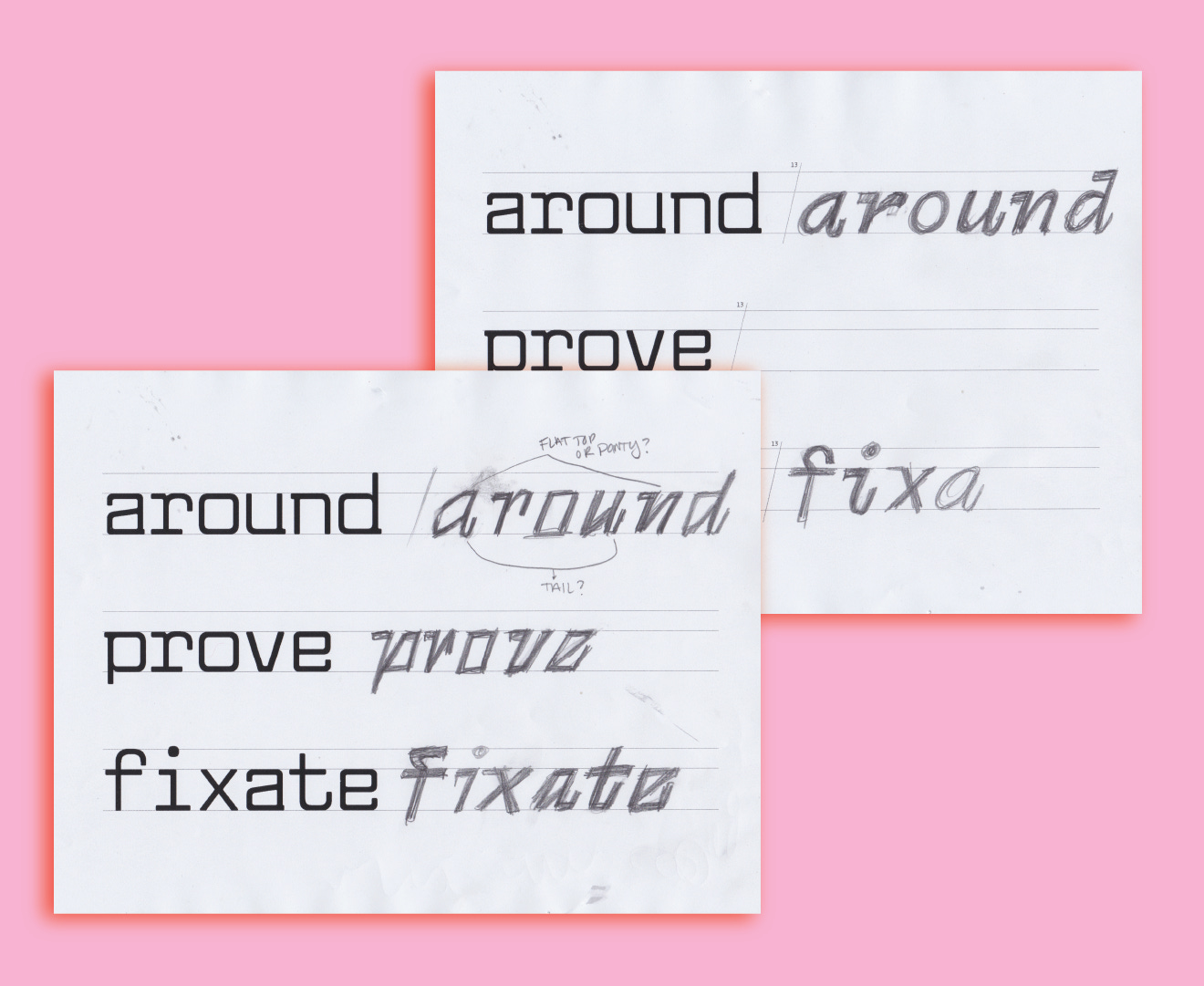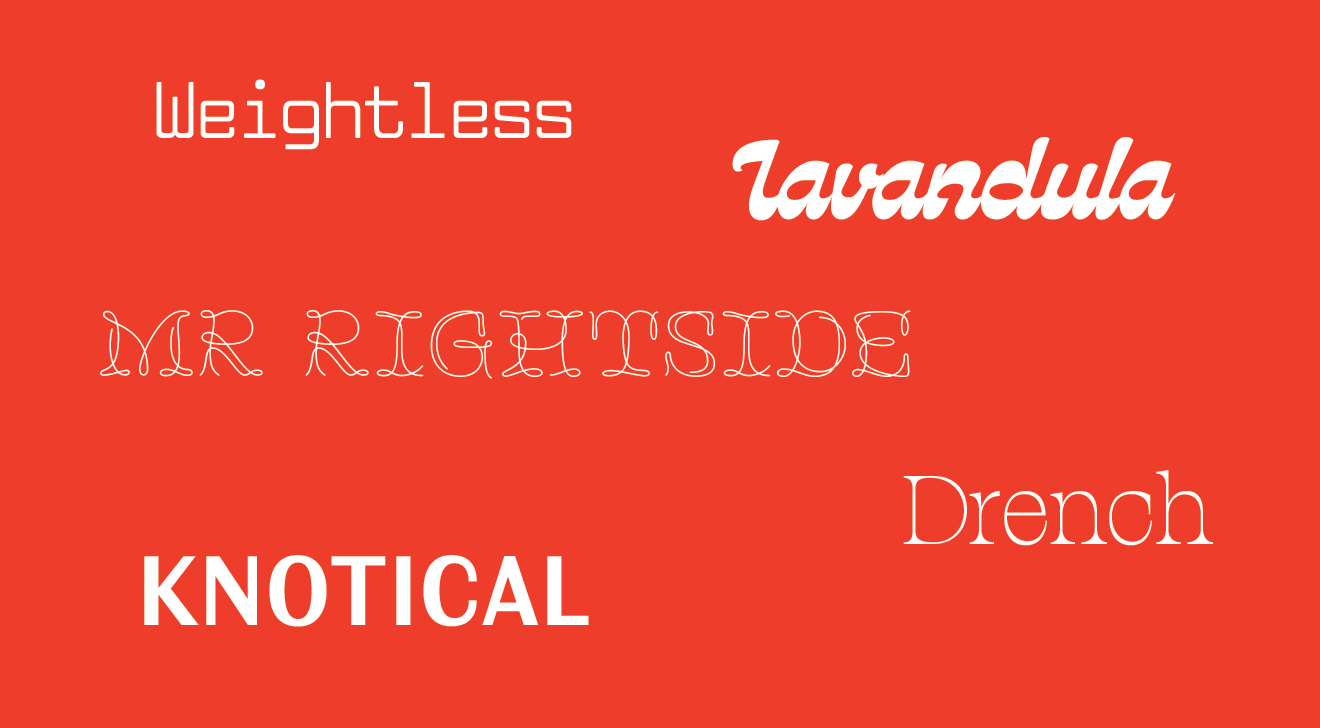
TDN Update 001
The first update of many <3
I am here with the first bi-weekly update post 52 Fonts Project. I thought it might be fun to start giving foundry updates on a regular basis. First and foremost, I was recently interviewed by the folks at The League Of Moveable Type, on their podcast The Weekly Typographic. It was so fun to be interviewed by Olivia! I loved chatting about the 52 Fonts Project and the future of Type Du Nord. Check it out!
Now that my yearlong project has ended, it’s time to get down to business!! I need to make this a fully functioning type foundry with fully developed type families and a place to sell them. Part of the reason I am sending email updates is to hold myself accountable! I miss the accountability this newsletter has brought me in the past so I am leaning on it once again. <3
One of the major projects I have been tinkering with is the website. I am starting my first iteration of typedunord.com on Cargo Collective. Remember that site that everyone would make their portfolio sites on? Well for some reason, they’re the only diy ecommerce site that allows for variations on digital products. This is necessary for having different licensing options (desktop, web, etc). I am still getting the hang of it but I am going for a gridded layout. It’s pretty basic but it seems like a good starting point. I included a quick illustrator sketch of my vision!! We’ll see how much it changes from this sketch to when it’s finally done.
Lately, I’ve been thinking a lot about Weightless. It’s the monospace from Week 50! It came in handy while making the zine because it was my only text weight font that has a decent amount of punctuation. So as I was being forced to use it, I grew to love it and wished it had more weights and an italic style. I have started to sketch some ideas for an italic (shown above). It’s not exactly the font I thought I would start with but here we are!!
These are the fonts I am going to focus on in the immediate future: Weightless, Lavandula, Knotical, Drench, and Mr Rightside. Some of these names might change but these are the ones I have continued to be excited about. Are there any others y’all think deserve a full family and official release?? I want to know!!